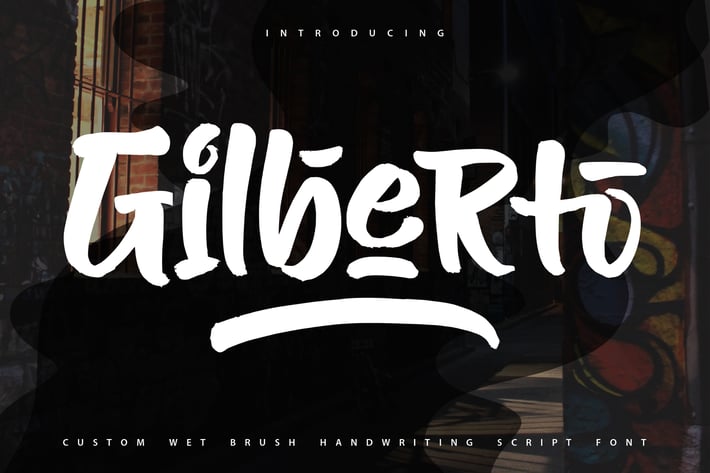
Gilberto | Brush Handwriting Script Font
Gilberto | Brush Handwriting Script Font with a calligraphy style, So beautiful on invitation like greeting cards, branding materials, business cards, quotes, posters, and more!